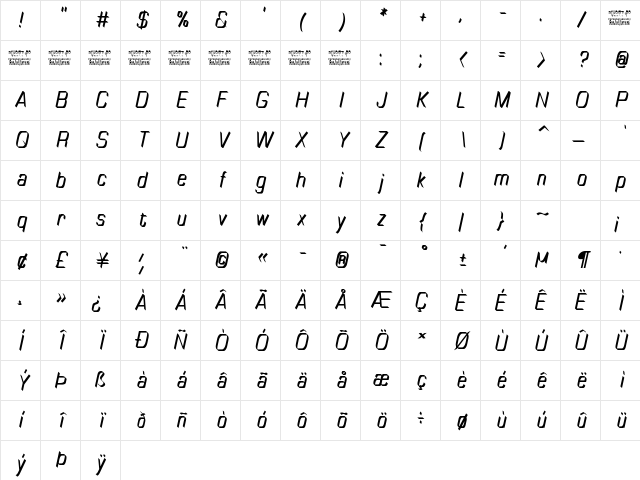
TinyPlate Italic Free Font
TinyPlate Italic
Foundry: StudioTypo
Designer: MEHMET ABACI
Design Context for TinyPlate
TinyPlate is a composed and adaptable typeface that performs quietly and consistently across a wide range of design contexts. The slanted form adds forward momentum and visual energy.
Pro Tip: Use TinyPlate for emphasis, pull quotes, and subheadings where its slanted energy can add rhythm to the layout.